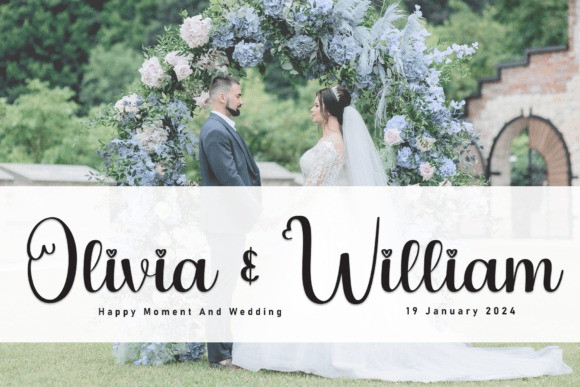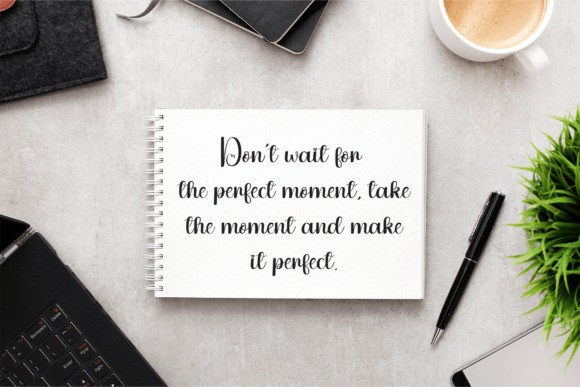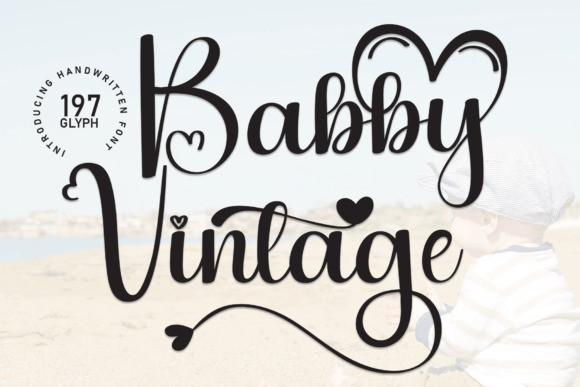
Baby Vintage Script Font
Baby Vintage Script Font is a sweet and cursive handwritten font. This gentle font will look gorgeous on a variety of design ideas. It will add a joyful and romantic touch to each of your projects!